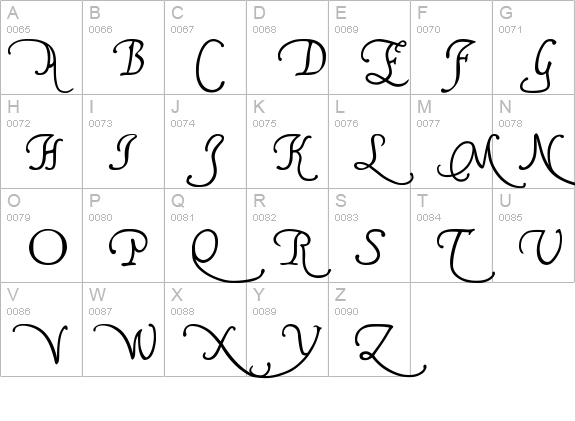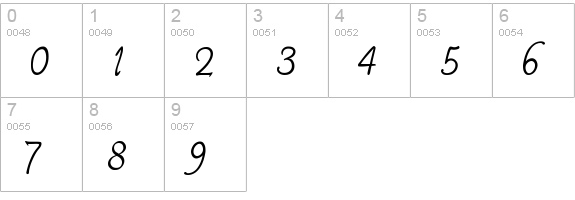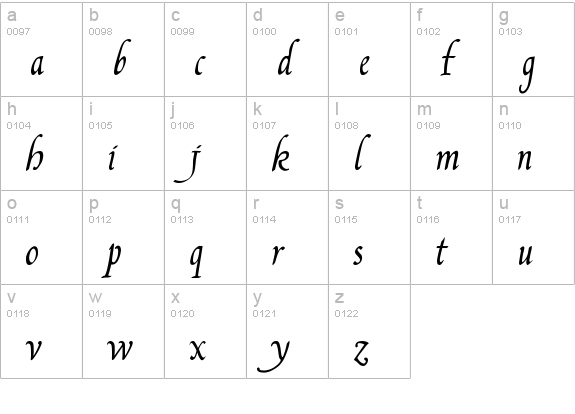
FranciscoLucas Briosa Font Details
Below you can preview FranciscoLucas Briosa in uppercase [A-Z], lowercase [a-z] and numbers [0-9]. You can also read the author's notes and license information before downloading.
FranciscoLucas Briosa font is a stunning display typeface that exudes elegance and sophistication. With its unique design and intricate details, this font is perfect for adding a touch of luxury to your projects. The graceful curves and flowing lines of FranciscoLucas Briosa create a sense of movement and fluidity, making it a standout choice for any design application. And the best part? FranciscoLucas Briosa font is completely free to download at FontsMarket.com. Whether you're working on a branding project, editorial design, or website, this font will elevate your creations to new heights. Don't miss out on the opportunity to enhance your designs with the beauty of FranciscoLucas Briosa font - download it for free today!